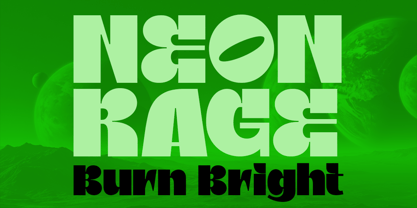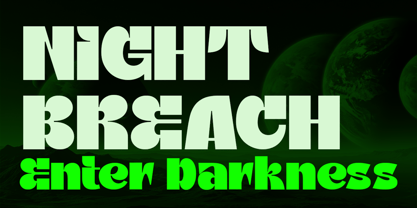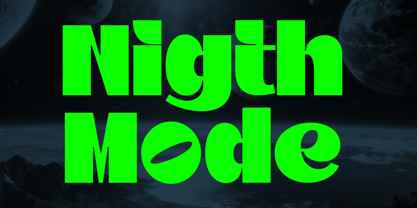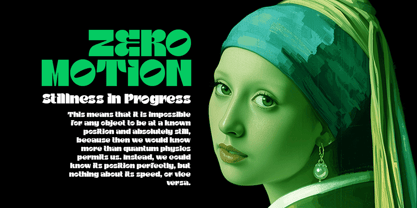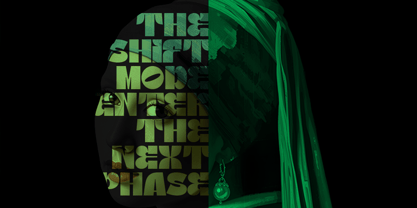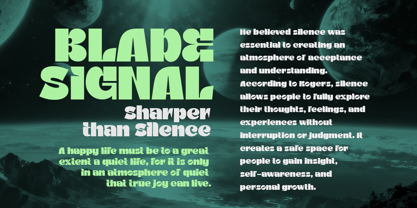
Night Mode
by Groen Studio
The Night Mode Font Family was designed by Roiyani Teungku and published by Groen Studio. Night Mode contains 1 styles. More about this family
Night Mode—Futuristic Minimal Display Font Night Mode is a futuristic minimal display font designed with a clean, cyberpunk-inspired aesthetic. Sleek geometric forms, sharp angles, and controlled spacing give this typeface a refined yet powerful presence — perfect for modern visuals that demand a bold, high-tech atmosphere. Crafted for designers who want a digital, neon-city vibe, Night Mode delivers clarity, impact, and style in every letter. Its minimalist construction makes it highly versatile for both creative and professional applications. Features: Futuristic minimal display style. Clean geometric shapes with sharp precision. Strong cyberpunk and neon-tech personality. Bold, modern, and highly readable. Perfect for large text, titles, and high-impact graphics. Perfect For: Cyberpunk & Sci-Fi Designs. Branding & Tech Logo Design. Game UI / HUD Elements. Posters & Magazine Covers. Album Art & Visual Music Projects. Modern Minimal Typography. Motion Graphics & Title Sequences.
Designers: Roiyani Teungku
Foundry: Groen Studio